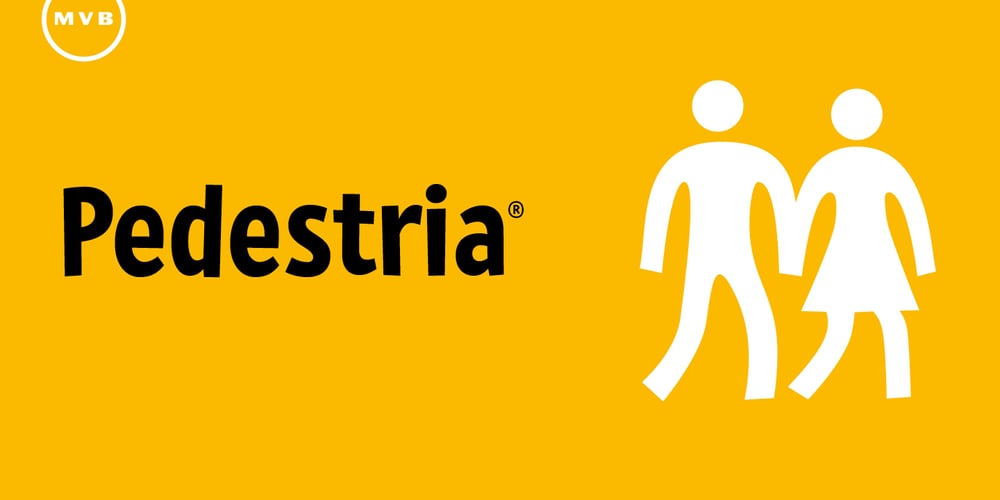
MVB Pedestria Font Family was designed by Akemi Aoki and published by MVB. MVB Pedestria contains 8 styles and family package options. Lettering on a vintage bottle cap served as inspiration for MVB Pedestria. Akemi Aoki’s design is simple and legible, yet full of life, thanks to its loose, casual forms. Two sets of irreverent Pict fonts take characters from ubiquitous public restroom door symbology to a new level, providing playful pictograms for invitations, advertising, and infographics.